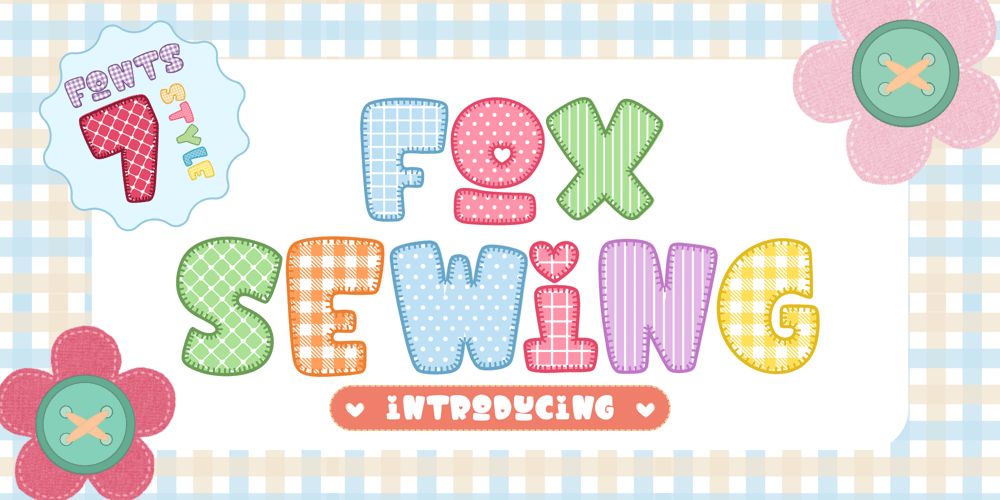
Fox Sewing Grid
Fox Sewing Grid font
Fox Sewing Grid Font Family was designed by Rattana Rattanawan and published by Fox7. Fox Sewing Grid contains 7 styles and family package options. Fox Sewing is a charming and versatile font family with 7 unique styles, perfect for adding a playful touch to your designs. Whether you’re working on children’s projects, holiday-themed creations, or anything that needs a fun and cute aesthetic, this font will fit right in. Use it to craft stunning invitations, lovely stationery, engaging social media posts, or heartwarming greeting cards. Add Fox Sewing to your font collection and start creating eye-catching.